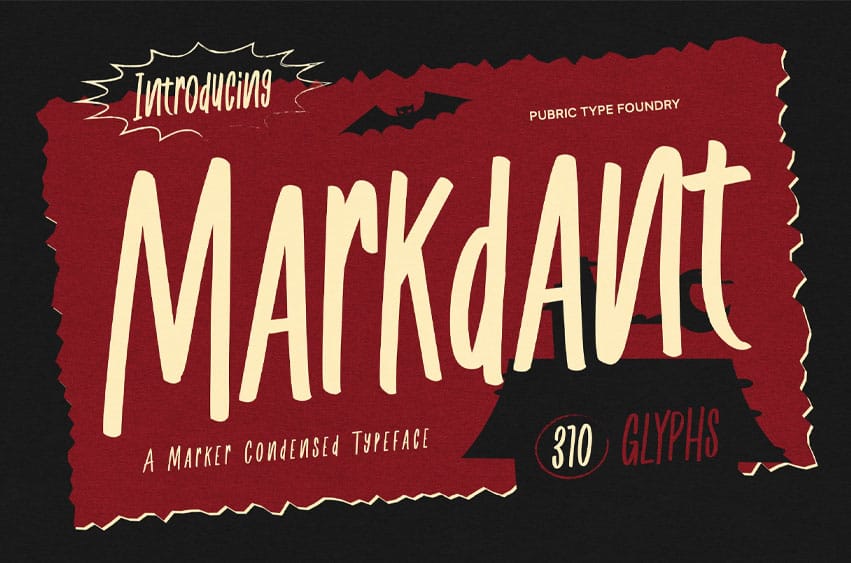
Markdant Font is a hand-drawn, condensed font with a gothic flair, offering a strong, bold impression. Suitable for horror, Halloween, or bold gothic-themed designs.
Ideal for headlines, logos, editorials, packaging, quotes, films, games, album covers, books, and promotional materials. This font ensures your design stands out in any setting.